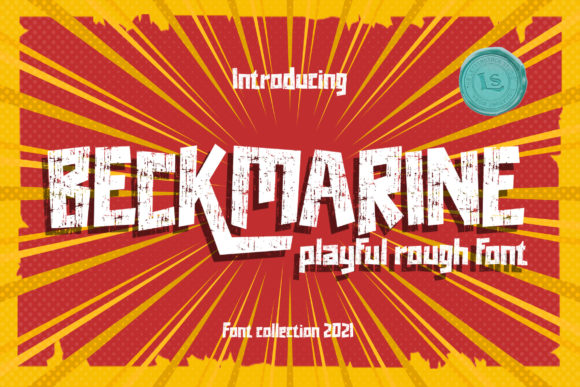
Beckmarine Font
Enter the realm of the macabre with Beckmarine, the font that captures the essence of Halloween's haunting allure. Its bold, thick strokes and rough-hewn texture evoke the mystique of a forgotten era, inviting you to embrace the eerie beauty of the unknown. With Beckmarine as your creative companion, you'll craft designs that dance with darkness and leave an unforgettable mark.
Unleash the power of Beckmarine and watch your creative visions transform into tangible masterpieces. Its versatile nature allows it to adapt seamlessly to an array of projects, from spine-chilling flyers to spellbinding posters. Imagine your words dancing across the page, each letter a ghostly apparition waiting to be discovered. Beckmarine is the perfect font for conjuring the spirit of Halloween, effortlessly transporting your audience to a realm of mystery and enchantment.
With Beckmarine, you'll weave tales of haunted houses and ghostly apparitions, leaving your audience spellbound. Its bold presence commands attention, while its intricate details reveal a hidden world of enchantment. Whether you're designing invitations for a Halloween soirée or creating eye-catching social media graphics, Beckmarine will elevate your creations to new heights of intrigue.
As you explore the depths of Beckmarine's character, you'll discover a font that's as versatile as it is captivating. Its bold strokes lend themselves perfectly to headlines that demand attention, while its rough-hewn texture adds an air of authenticity to vintage-inspired designs. You'll find yourself reaching for Beckmarine time and time again, its unique charm adding a touch of the extraordinary to every project you undertake.
Beckmarine is more than just a font; it's a gateway to a world where imagination runs wild and creativity knows no bounds. Let your designs take on a life of their own as Beckmarine weaves its magic, enchanting your audience with its haunting beauty. Embrace the darkness and let Beckmarine guide you on a journey into the unknown, where your creative spirit will flourish and your designs will leave a lasting impression.